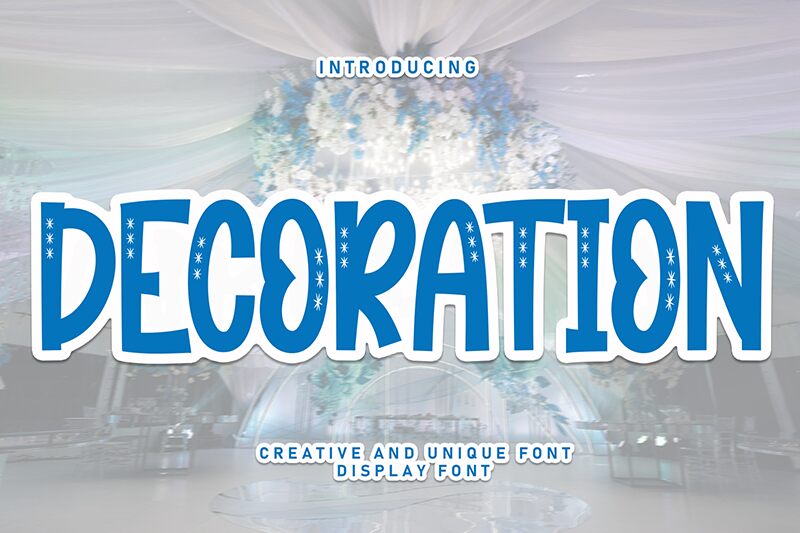
DECORATION
Decoration font by Scratchones is a deco-inspired display font that features ornate patterns and expressive decorative elements. It combines artistic flair with uniformity and offers a stylish finished product that keeps the sense of harmony sought. The font also comes in a condensed width, hence looking good in both big titles and small paragraphs.